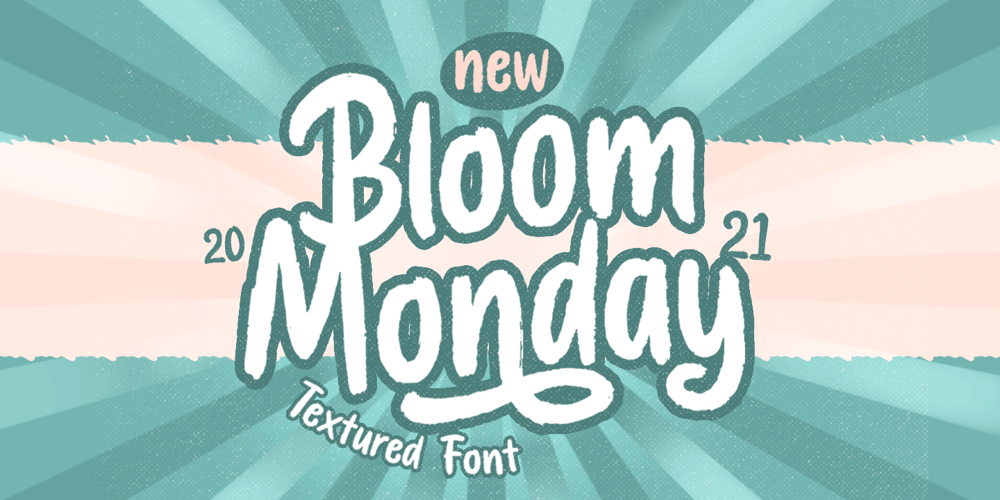
Bloom Monday Font Family was designed by Hendry Juanda and published by Letterhend. Bloom Monday contains 1 styles and family package options. Bloom Monday is a retro bold script with a touch of vintage look and feel. The swashes makes this font looks great for retro lettering which you can create in a sec! This type of font perfectly made to be applied especially in logo, headline, signage and the other various formal forms such as invitations, labels, logos, magazines, books, greeting / wedding cards, packaging, fashion, make up, stationery, novels, labels or any type of advertising purpose.Features : uppercase & lowercase numbers and punctuation multilingual alternates / swashes and ligatures PUA encoded We highly recommend using a program that supports OpenType features and Glyphs panels like many of Adobe apps and Corel Draw, so you can see and access all Glyph variations. How to access opentype feature : letterhend.com/tutorials/using-opentype-feature-in-any-software/